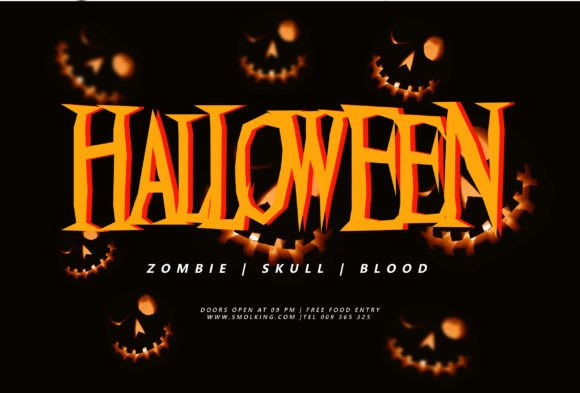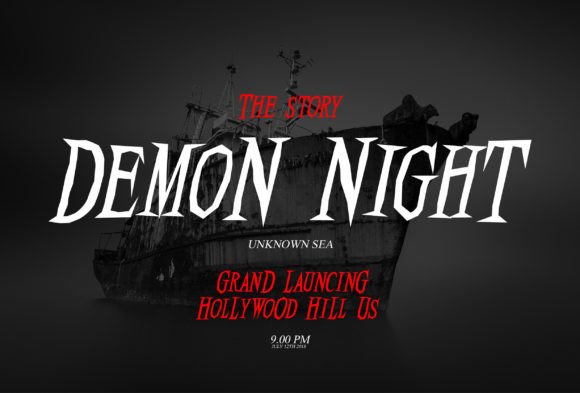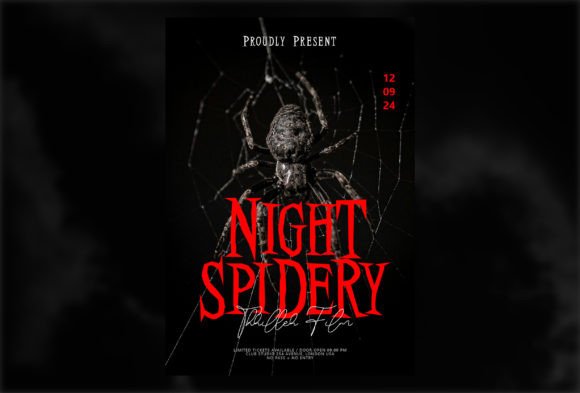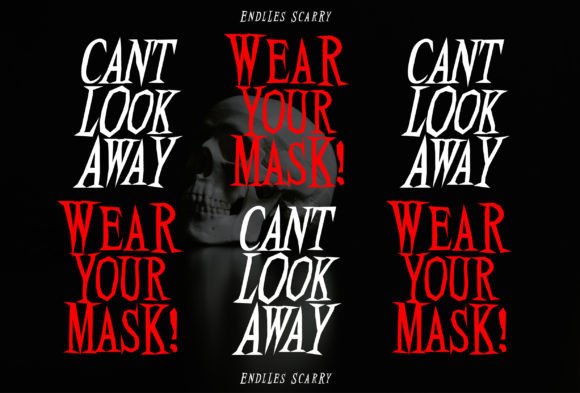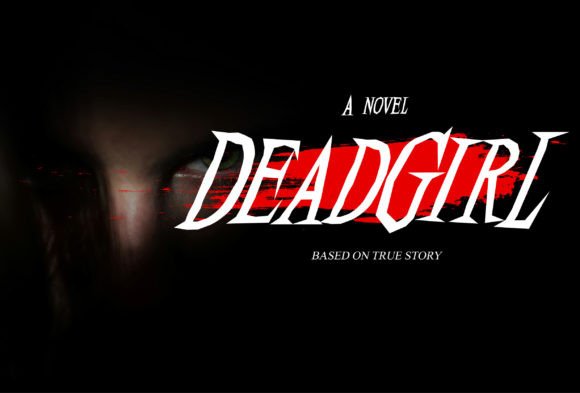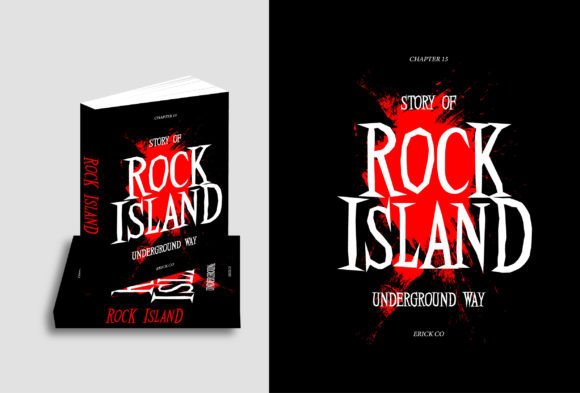
Unleash Your Design Potential with Endless Scarry Font
Welcome to the world of Endless Scarry, a revolutionary font that seamlessly blends strength and elegance to elevate your designs to new heights. This stunning font is meticulously crafted to make a lasting impact, thanks to its unique fusion of sharp edges and smooth curves, accentuated by a sleek vertical inclination that adds a touch of creative sophistication.
The Power of Endless Scarry
Endless Scarry is more than just a beautiful font – it’s a functional masterpiece designed to adapt effortlessly to a wide range of design needs. Whether you’re creating bold t-shirt prints, captivating movie posters, gripping book covers, or mood-conveying quotes, this font is the perfect choice. Its versatility and creative edge make it an indispensable tool for designers and crafters looking to make a statement.
Endless Scarry comes with a plethora of features designed to streamline your design journey. Some of the key benefits include:
- Complete Character Set: Upper and lower case letters, numbers, and punctuation marks ensure that you have everything you need to create stunning designs.
- International Language Support: Endless Scarry supports various international languages, making it a perfect choice for designers working on global projects.
- Extra Decorative Elements: Take your designs to the next level with our additional decorative elements that add a personalized touch to your creations.
Design Possibilities with Endless Scarry
The design possibilities with Endless Scarry are endless. Here are a few examples of how you can use this incredible font:
- T-Shirt Prints: Create bold and eye-catching designs for t-shirts, hoodies, and other apparel.
- Movie Posters: Design captivating movie posters that grab attention and leave a lasting impression.
- Book Covers: Craft gripping book covers that convey the mood and tone of the story.
- Quotes and Typography: Use Endless Scarry to create stunning typography designs that convey your message with impact.
Why Choose Endless Scarry?
So, why choose Endless Scarry over other fonts? Here are a few compelling reasons:
- Unique Design: Endless Scarry boasts a unique design that sets it apart from other fonts.
- Versatility: This font is incredibly versatile and can be used for a wide range of design projects.
In conclusion, Endless Scarry is a game-changing font that combines strength and elegance to elevate your designs to new heights. With its unique design, versatility, and ease of use, this font is a must-have for designers and crafters looking to make a statement. Whether you’re working on a bold t-shirt print or a captivating movie poster, Endless Scarry is the perfect choice. So, dive into the world of design with Endless Scarry and unlock a world of creative possibilities!